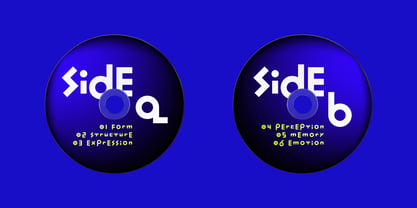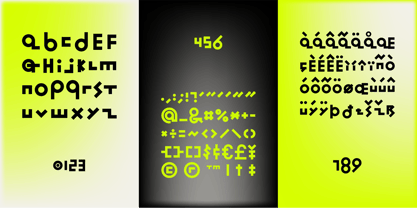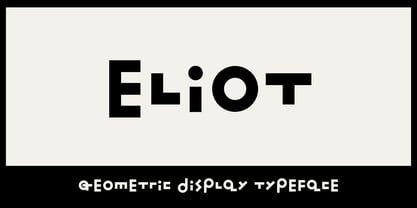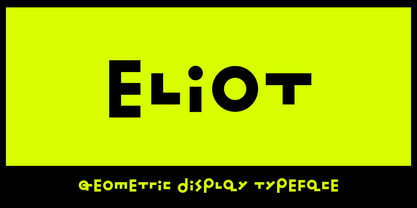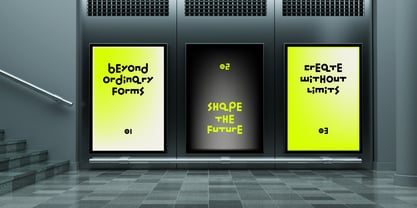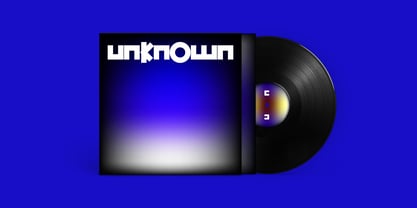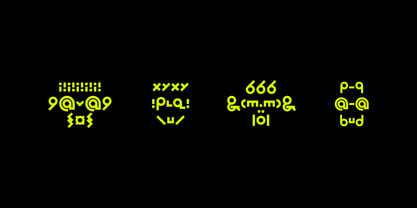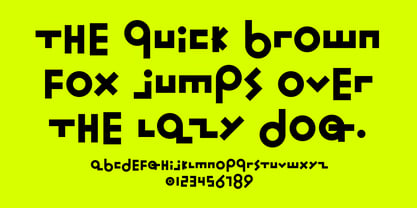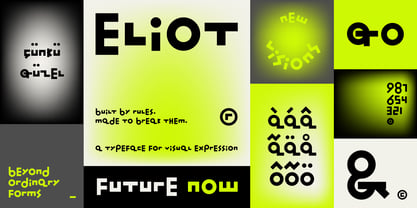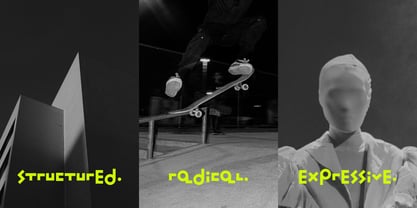
Eliot
The Eliot Font Family was designed by Wolin Zhao and published by Eliot Wolin. Eliot contains 1 styles. More about this family
Eliot is a geometric display typeface that explores the relationship between structure, rhythm, and visual expression. Built from bold geometric forms and distinctive modular details, it creates a futuristic yet playful personality while maintaining a strong sense of balance and readability.
Designed for impactful visual communication, Eliot is suitable for posters, branding, headlines, packaging, editorial layouts, digital graphics, and creative projects that require a unique typographic voice. Its experimental shapes and unconventional letterforms bring energy and character to contemporary design environments.
The typeface includes uppercase and lowercase characters, numerals, punctuation, symbols, and extended Latin support. Eliot is designed for designers who seek a memorable display font with a strong visual identity and a modern geometric aesthetic.